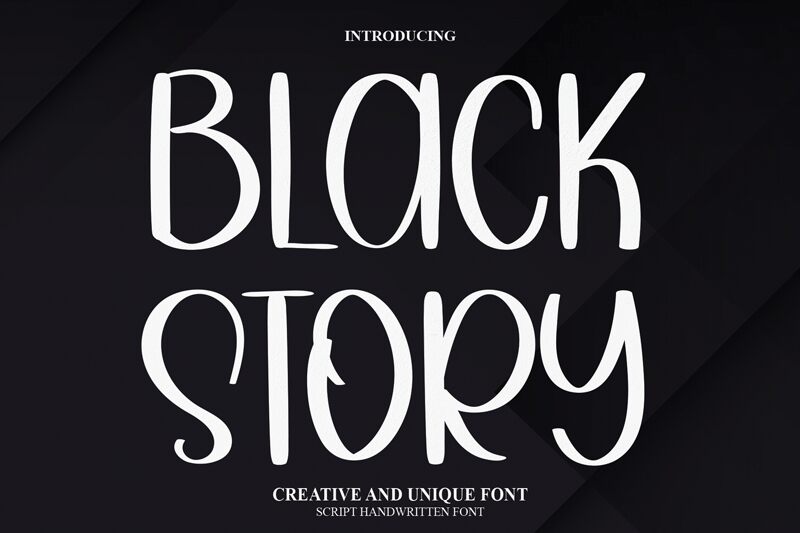
Black Story
Black Story, designed by Belina Studio, is a captivating handwritten font that adds a touch of elegance to any project. With its semi-light weight, this font is perfect for creating eye-catching headlines and titles on websites, blogs, or social media posts. Its unique and artistic style makes it suitable for various projects ranging from fashion magazines and beauty blogs to wedding invitations and branding materials. Black Story effortlessly combines sophistication with a personal touch, making it an ideal choice for those seeking to make a memorable impression.
the latest style letters are perfect for wall displays, wedding invitations, social media post logos, advertisements, product packaging, product designs, labels, photography, watermarks, invitations, stationery, and any project that requires taste handwriting.